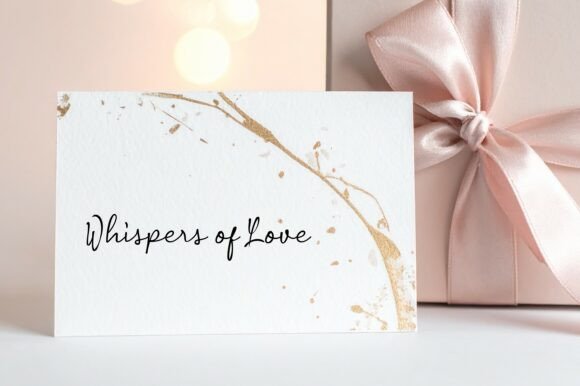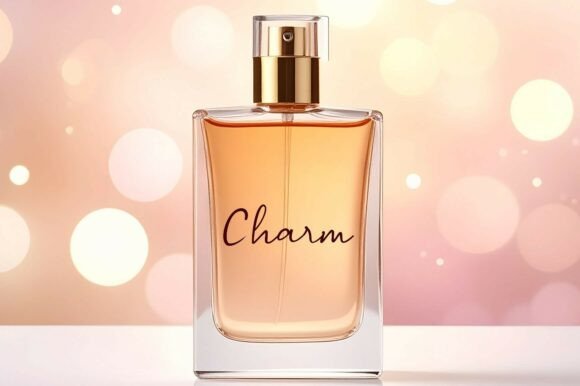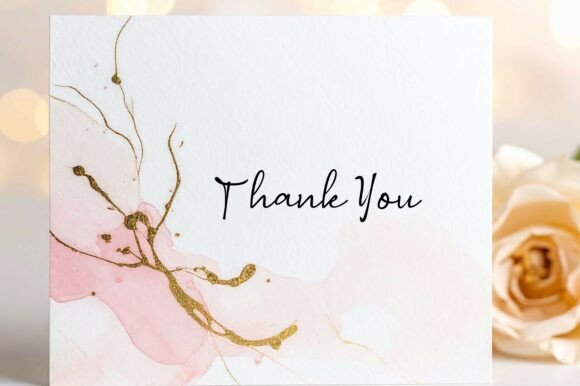
Introducing Andragogy Font: The Epitome of Modern Refinement
In the world of typography, few fonts manage to convey the essence of luxury and sophistication as effortlessly as Andragogy Font. This stunning, monoline script is a masterclass in modern refinement, boasting a graceful flow that is sure to elevate any design project. With its delicate, consistent line weights and elegant connections, Andragogy Font is the perfect choice for designers and crafters seeking to add a touch of high-end flair to their work.
The Characteristics of Andragogy Font
Andragogy Font is characterized by its sleek, monoline design, which features delicate, consistent line weights that create a sense of fluidity and movement. The elegant connections between letters add a touch of sophistication, making this font perfect for luxury branding, wedding invitations, and upscale beauty packaging. The overall aesthetic of Andragogy Font is one of understated elegance, making it an exceptional choice for brands that value refinement and poise.
Perfect Pairings: Using Andragogy Font with Sans-Serif Fonts
One of the key benefits of Andragogy Font is its versatility, particularly when paired with wide-spaced sans-serif fonts. The clean, contemporary hierarchy created by combining Andragogy Font with sans-serif fonts is ideal for designers seeking to create a striking visual contrast. This pairing adds a touch of sophistication to digital signatures, thank-you notes, and boutique event programs, making it perfect for high-end applications.
Applications for Andragogy Font
Andragogy Font is an incredibly versatile typeface, suitable for a wide range of applications. Some of the most popular uses for this font include:
- Luxury branding: Andragogy Font is perfect for high-end brands seeking to convey a sense of sophistication and refinement.
- Wedding invitations: The elegant, flowing design of Andragogy Font makes it an ideal choice for wedding invitations and other formal events.
- Upscale beauty packaging: Andragogy Font adds a touch of luxury to beauty packaging, making it perfect for high-end skincare and cosmetics brands.
- Digital signatures: The airy, lighthearted nature of Andragogy Font makes it an excellent choice for digital signatures and other online applications.
- Boutique event programs: Andragogy Font is perfect for boutique event programs, such as fashion shows, charity galas, and other high-end events.
The Benefits of Using Andragogy Font
So why choose Andragogy Font for your design projects? Here are just a few benefits of using this exceptional typeface:
- Unparalleled elegance: Andragogy Font boasts a level of sophistication and refinement that is hard to match.
- Versatility: Andragogy Font is suitable for a wide range of applications, from luxury branding to wedding invitations.
- Easy to pair: Andragogy Font pairs beautifully with wide-spaced sans-serif fonts, making it easy to create a striking visual hierarchy.
- Approachable yet premium: The airy, lighthearted nature of Andragogy Font makes it feel approachable yet undeniably premium.
In conclusion, Andragogy Font is a sophisticated, monoline script that embodies the essence of modern refinement and graceful flow. With its delicate, consistent line weights and elegant connections, this font is perfect for luxury branding, wedding invitations, and upscale beauty packaging. Whether you’re a designer or crafter, Andragogy Font is an exceptional choice for adding a touch of high-end flair to your work. So why not give Andragogy Font a try and experience the benefits of this stunning typeface for yourself?